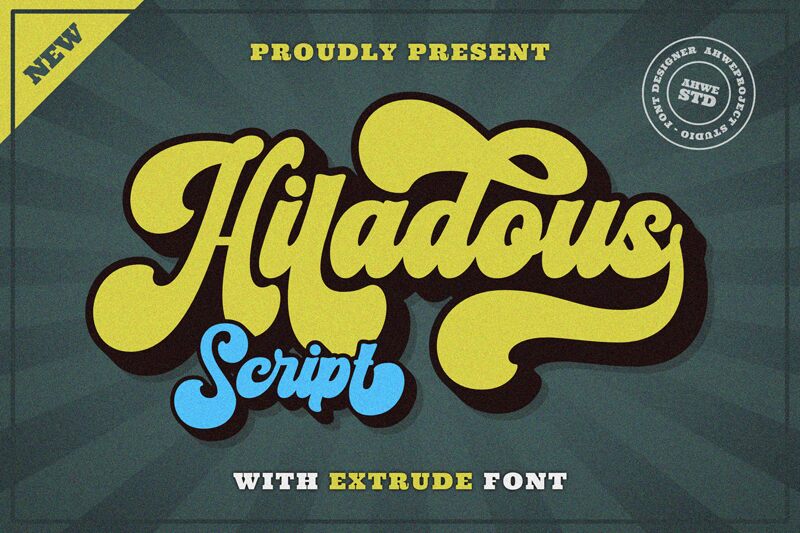
Hiladous font is a bold retro brush typeface crafted & designed by Ahwe Project. With its distinct, hand-painted style, Hiladous captures the attention of onlookers, making it ideal for projects that require a strong yet artistic flair. Whether you're crafting a rustic piece or an exciting design with character and charm, this big-impact font adds energy to your work.
Hiladous is great for poster designs, logos & branding, illustrations/clipart drawings (for example: t-shirts) as well as web graphics such as ads banners etc. Add some old-school flavor into any creative endeavor – especially ones requiring visual impact.